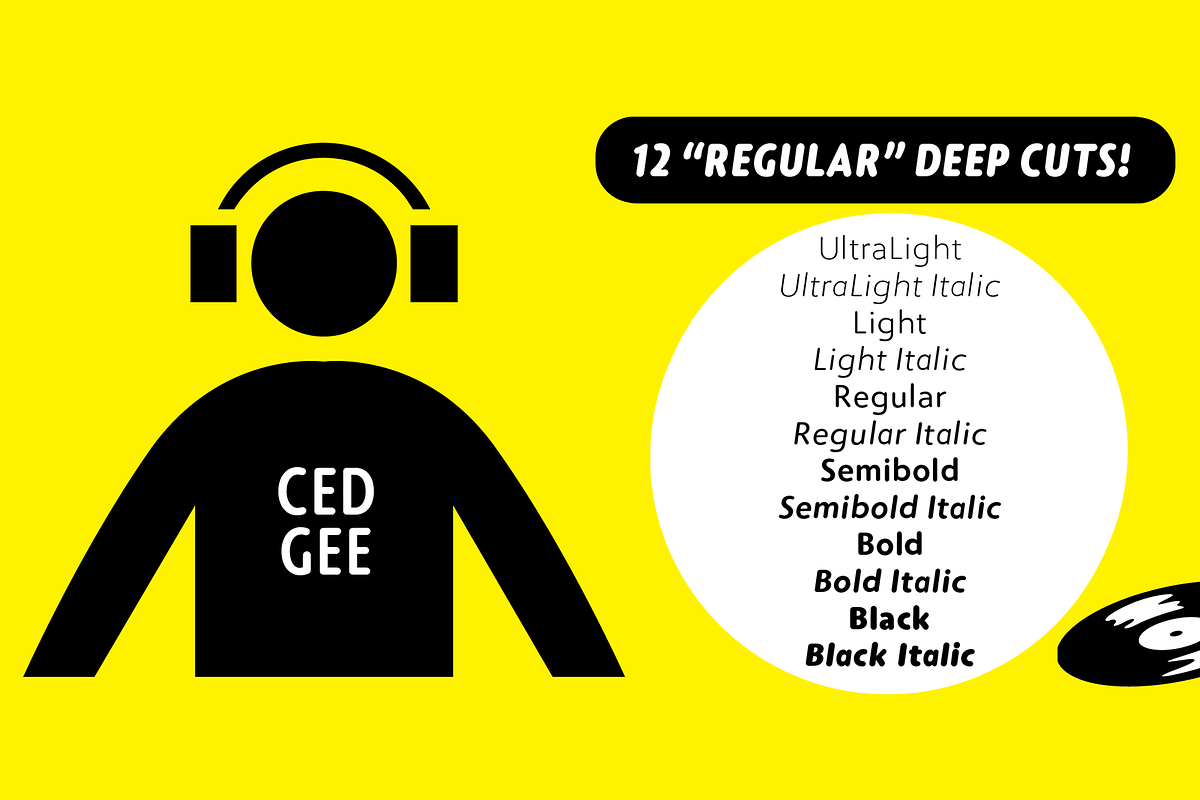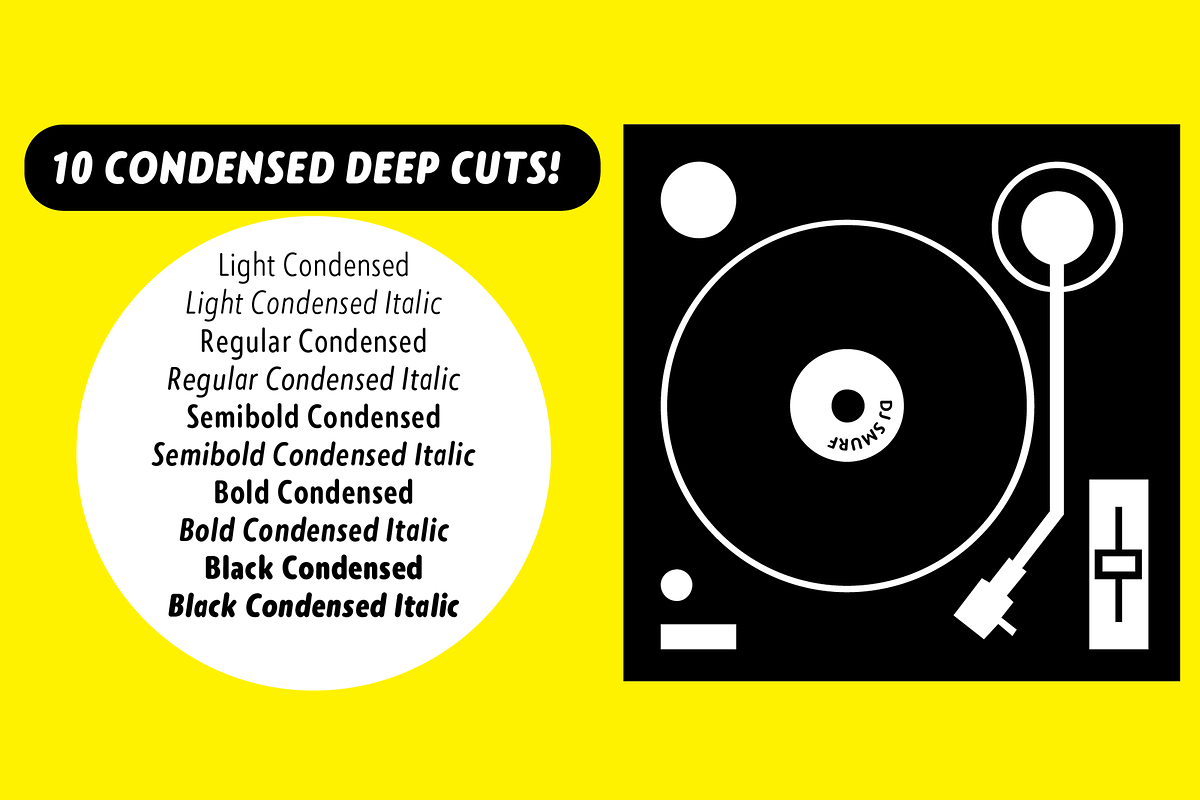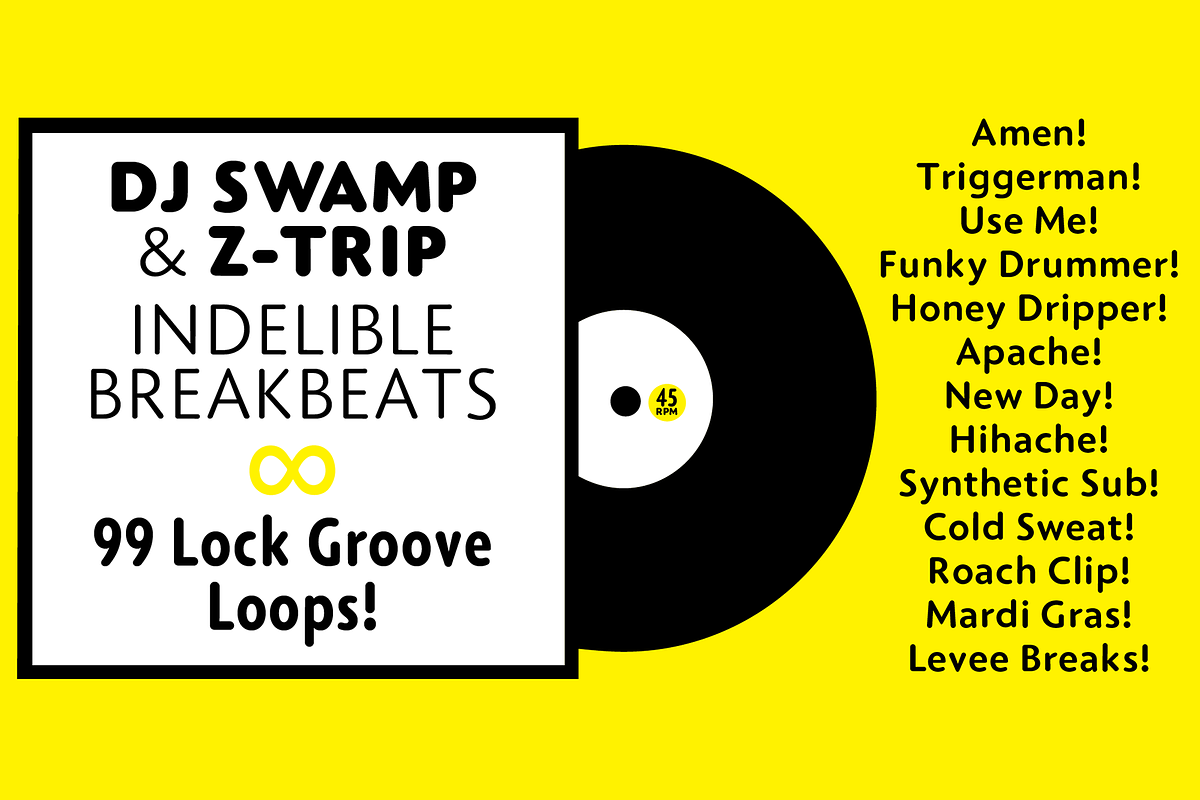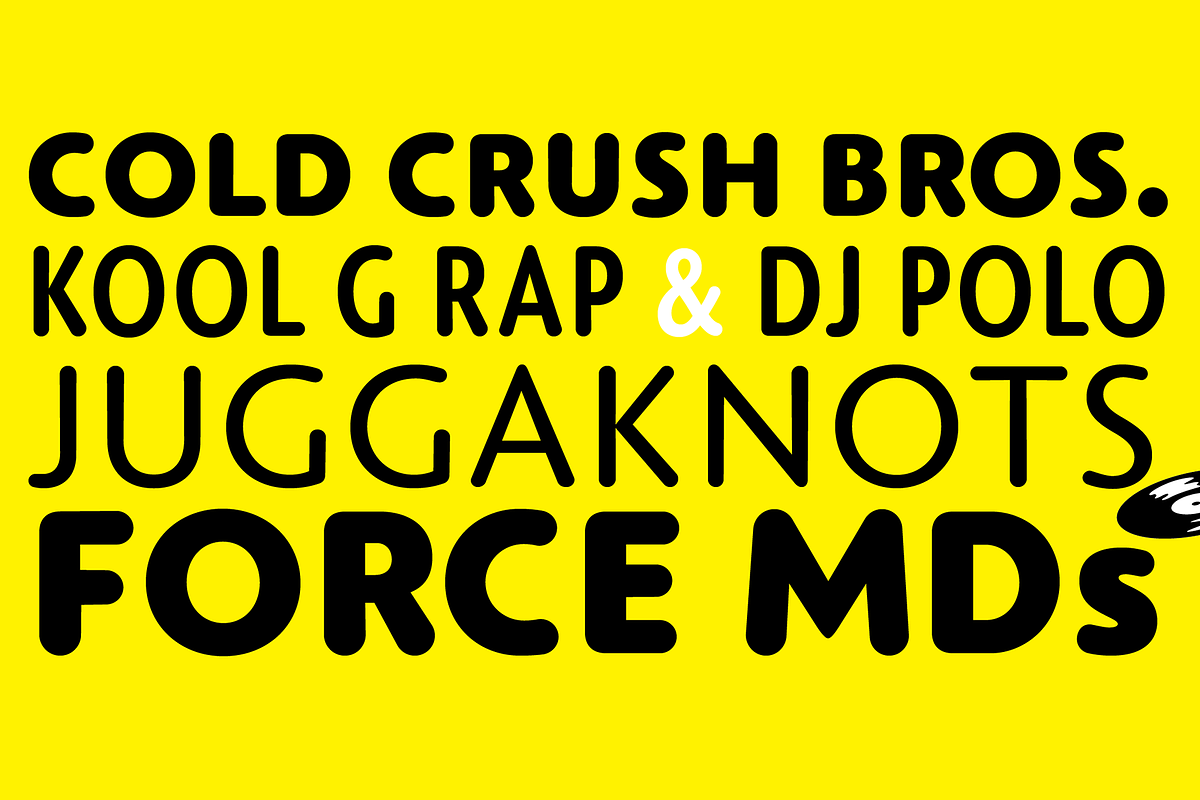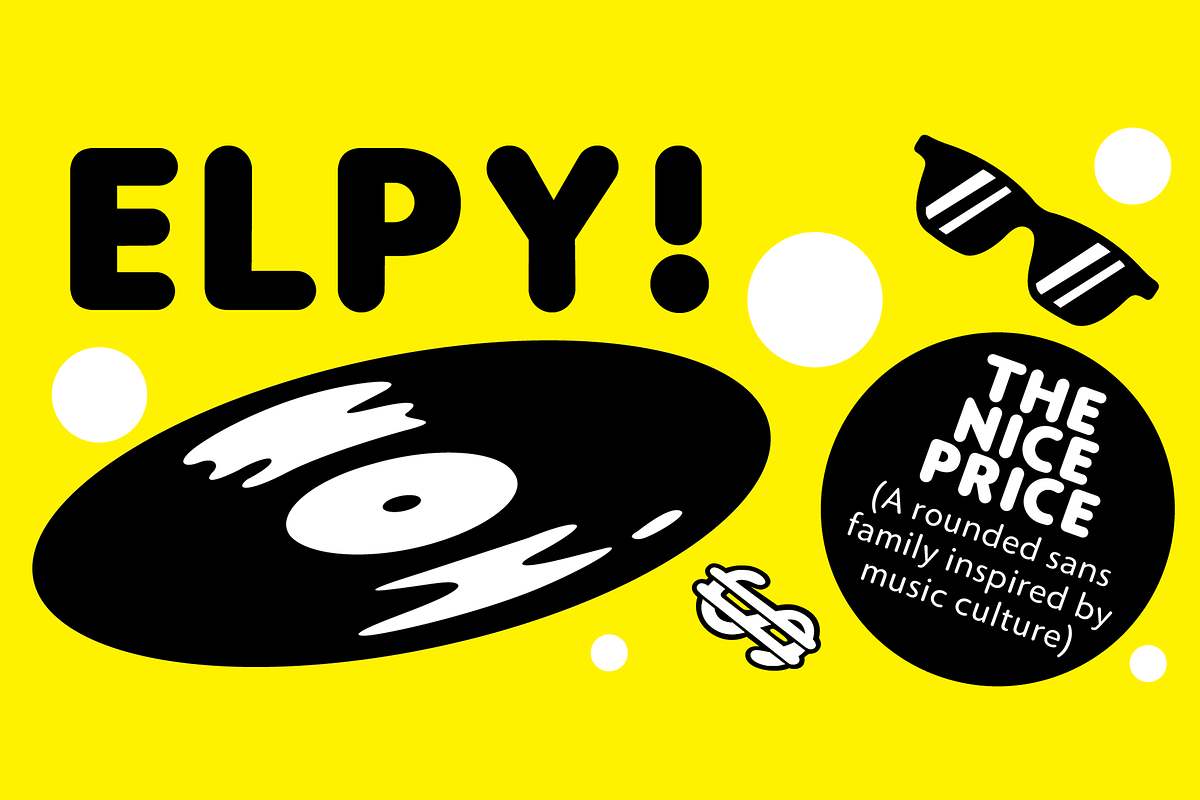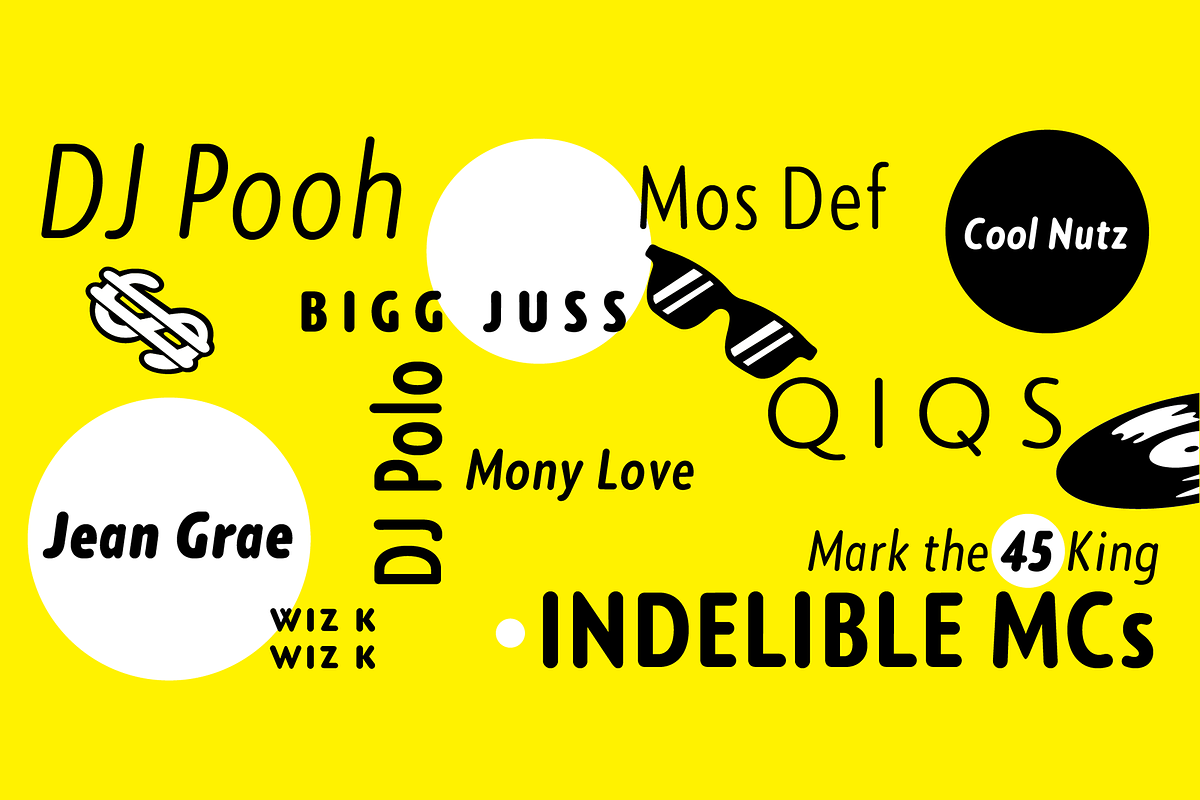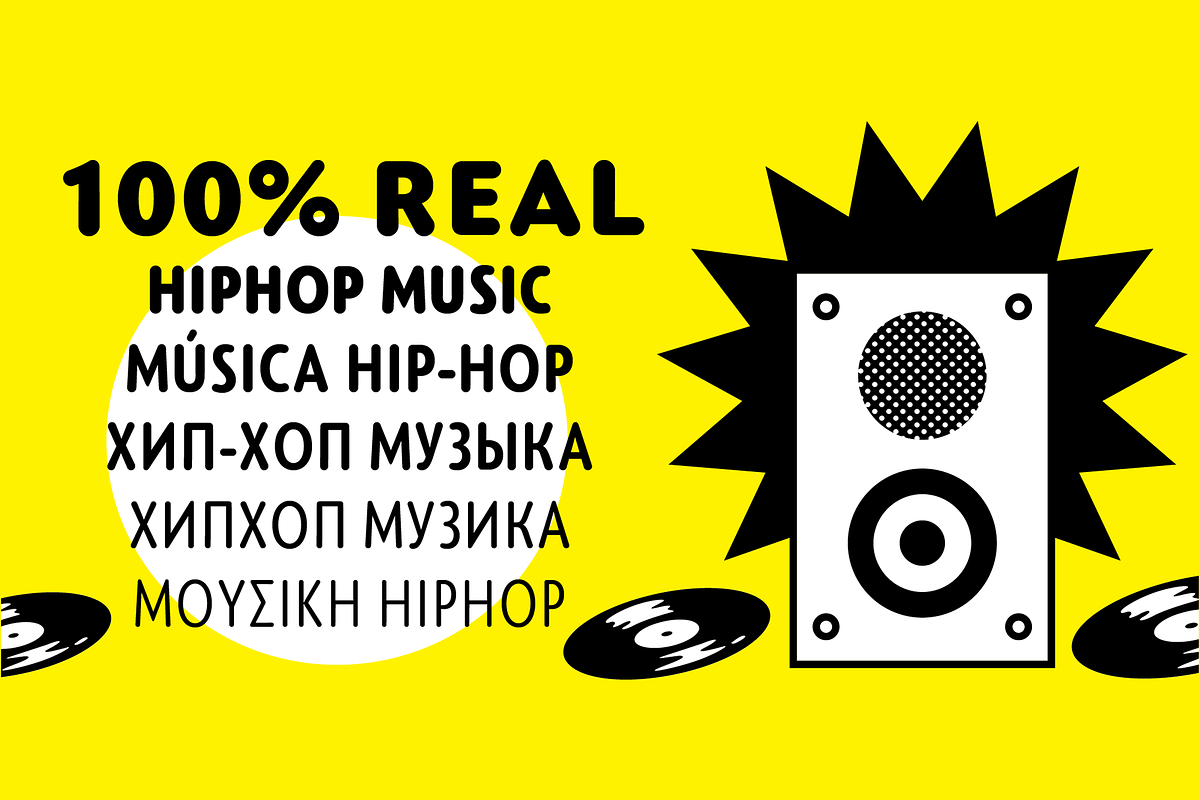
Elpy
Elpy is a friendly rounded sans serif workhorse family inspired by all things music! Spanning 22 Condensed and Regular weights with true italics, Elpy will fit right in with your record collection and your font collection!